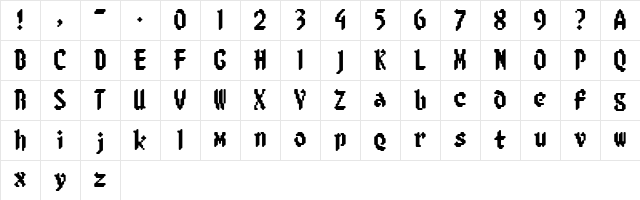
8-bit Limit R (BRK) Regular
Design Context for 8-bit Limit R (BRK)
8-bit Limit R (BRK) is a composed and adaptable typeface that performs quietly and consistently across a wide range of design contexts.